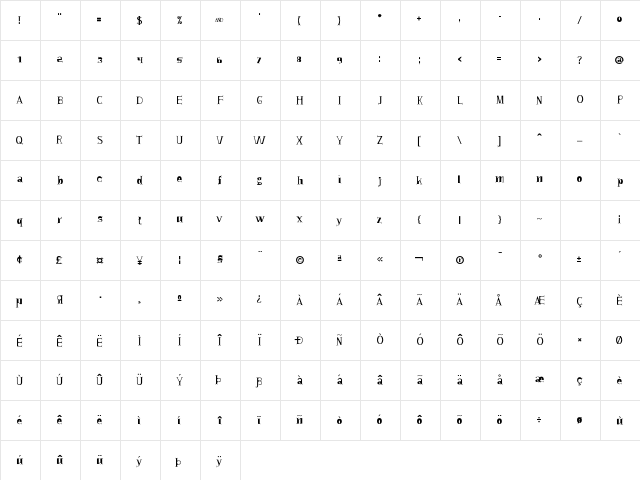
Collonist Regular Free Font
Collonist Regular
Complete Collonist Regular glyph index. Displaying only characters natively supported by Collonist Regular font.
Design Context for Collonist
Collonist is a composed and adaptable typeface that performs quietly and consistently across a wide range of design contexts.